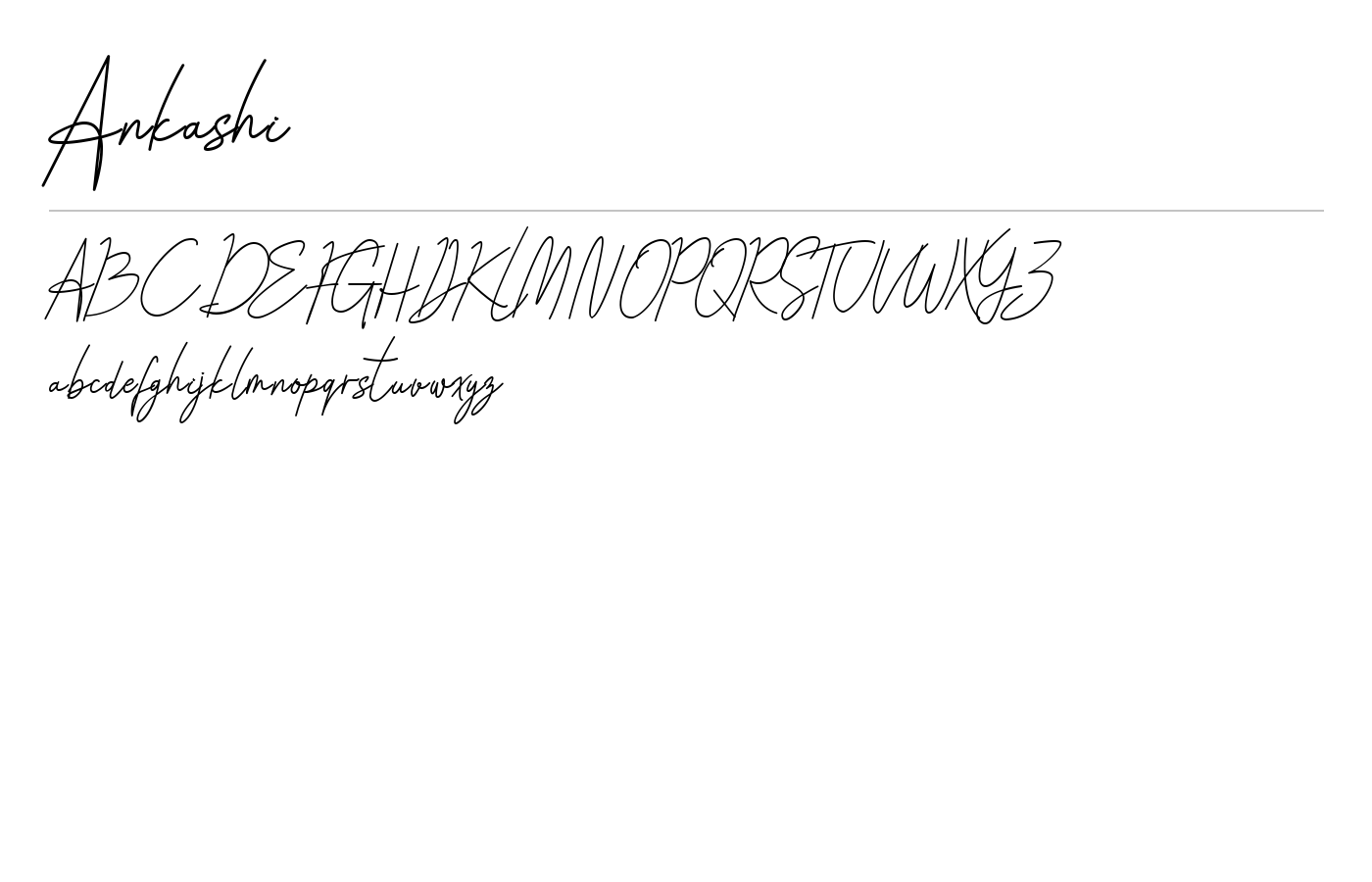
Ankashi is a delicate, handwritten script font with a tall, slender form and elegant, flowing lines that mimic natural pen strokes. Its light weight, high x-height, and ornate letter connections give it a refined, personal touch perfect for branding, invitations, and artistic projects seeking a sophisticated yet approachable feel. This font works beautifully in designs where an intimate, graceful expression is desired, adding charm without overwhelming the composition.
Ankashi Font